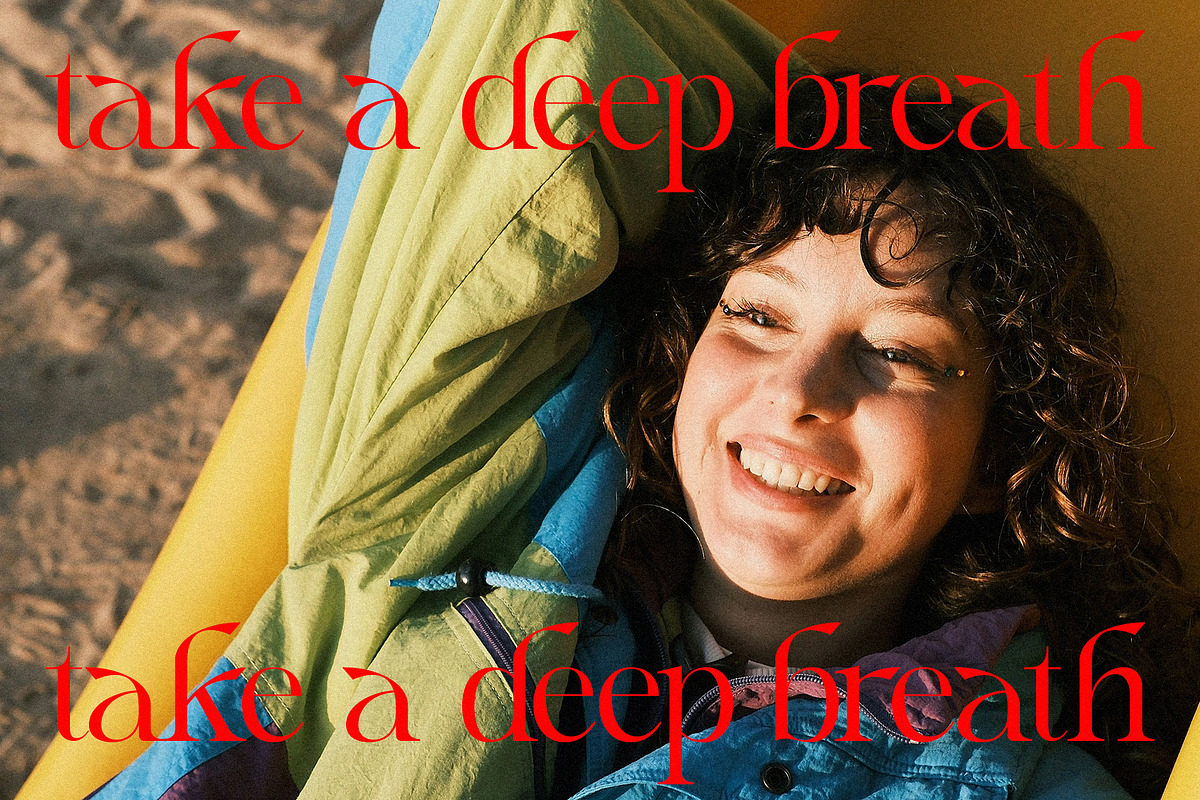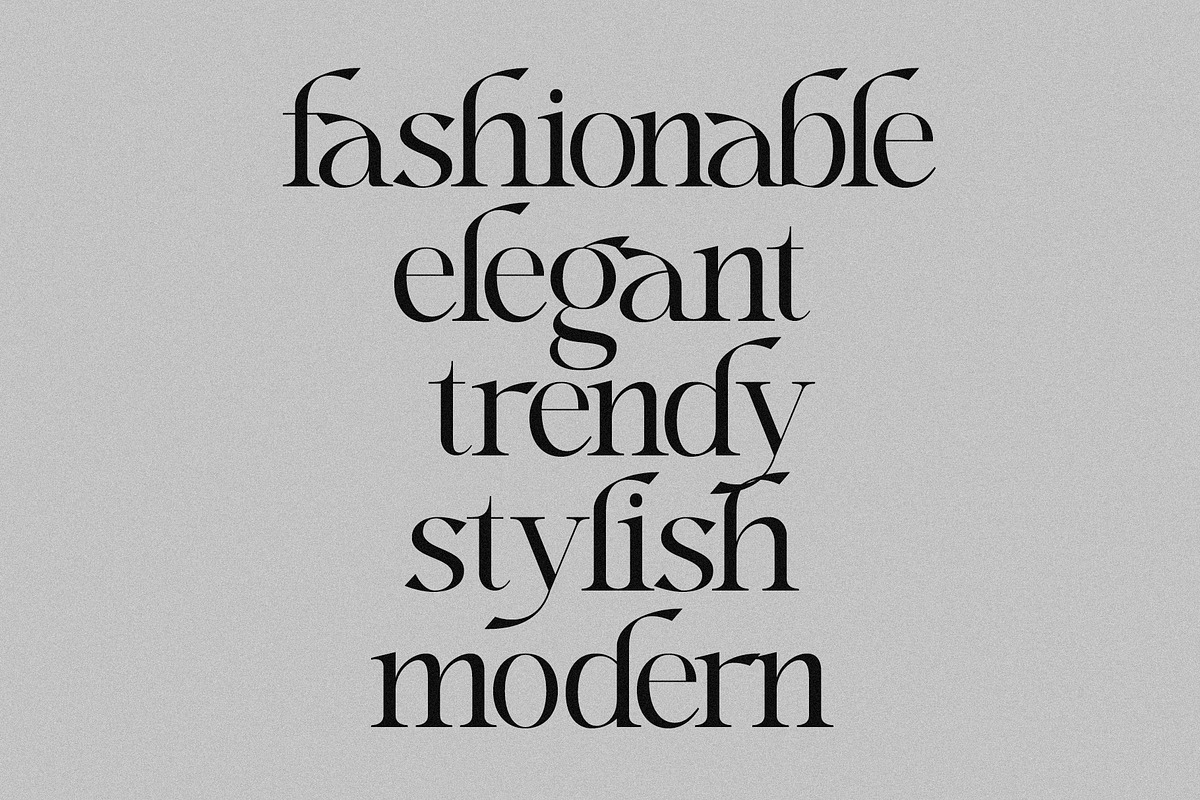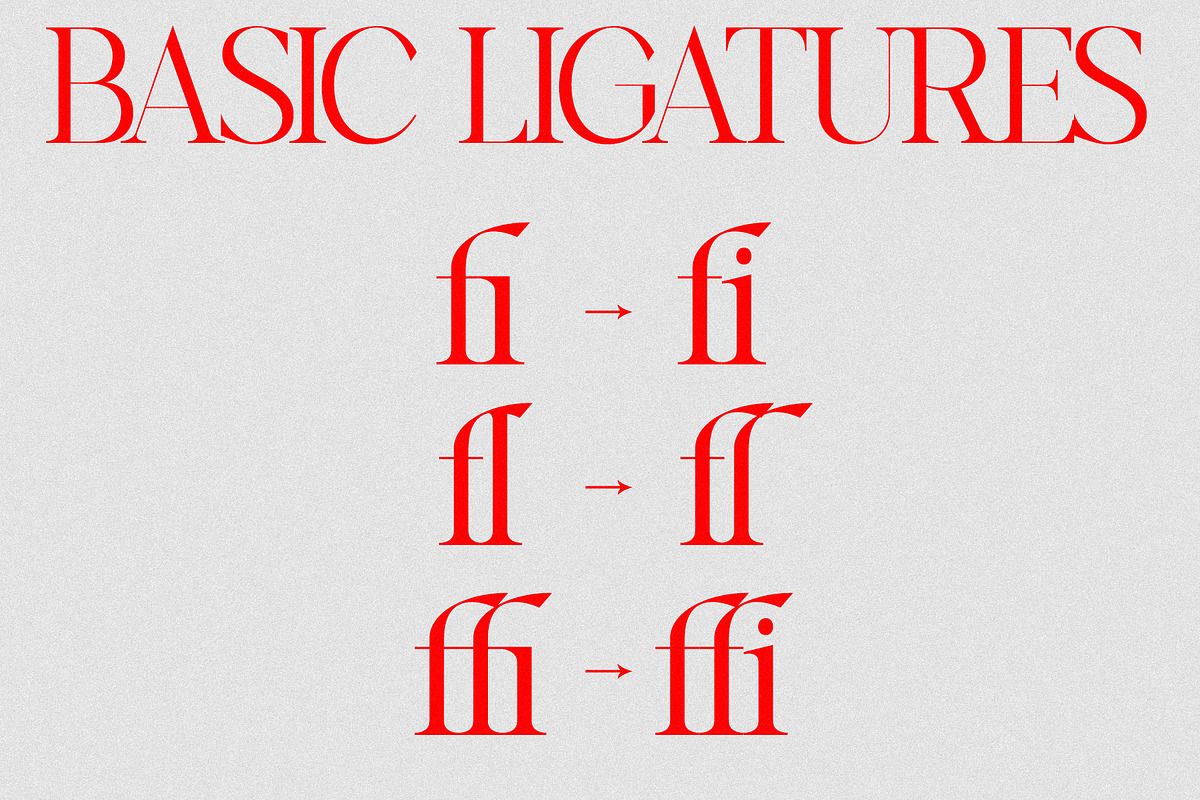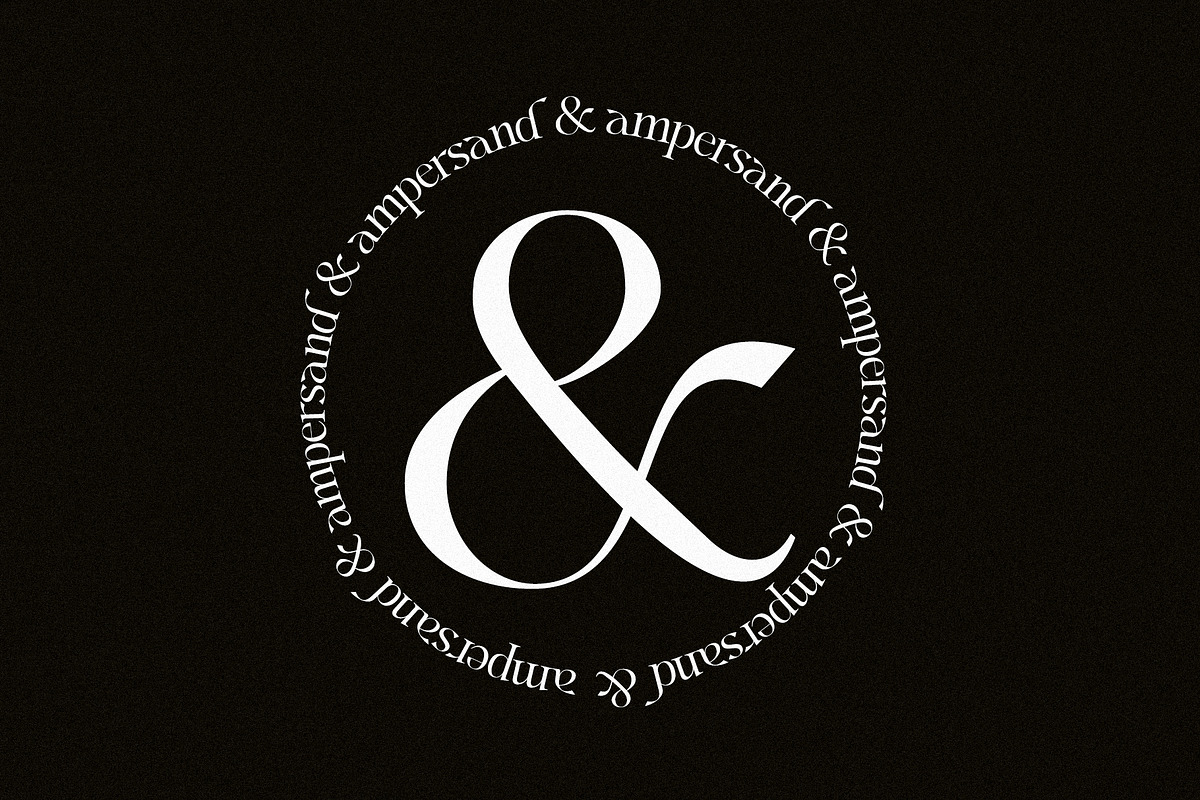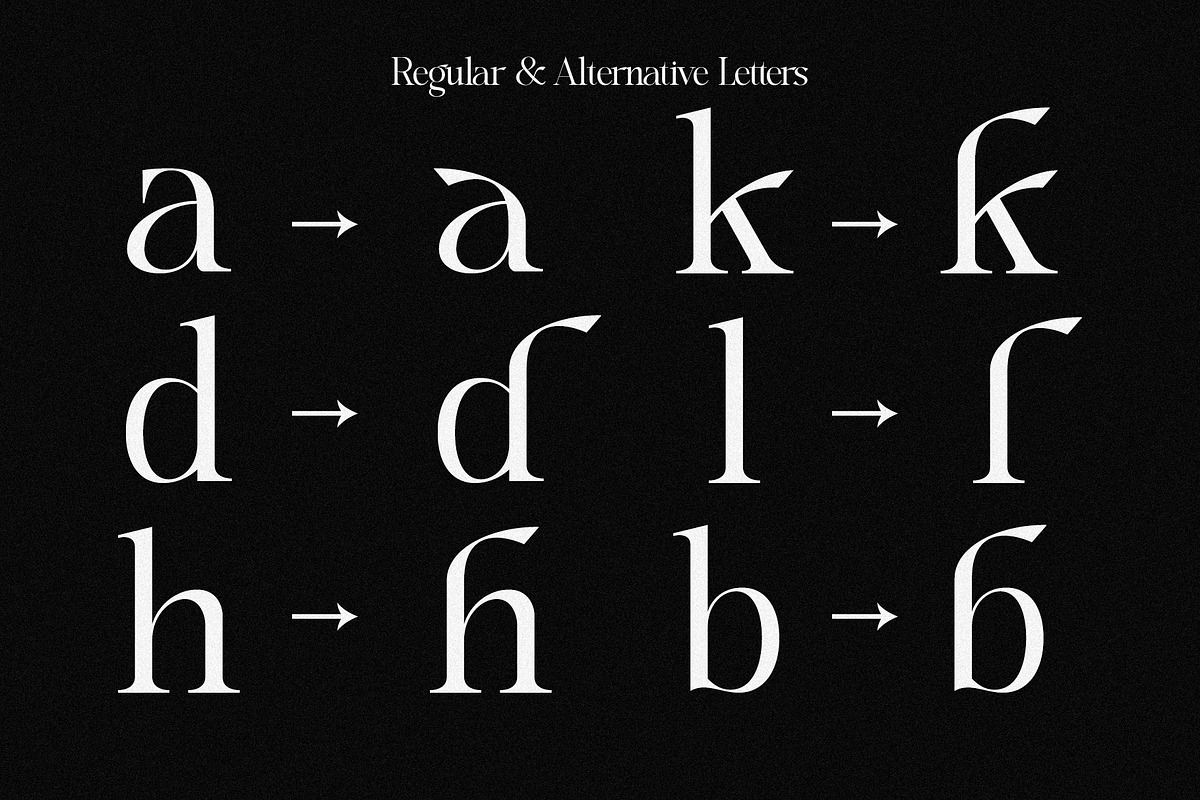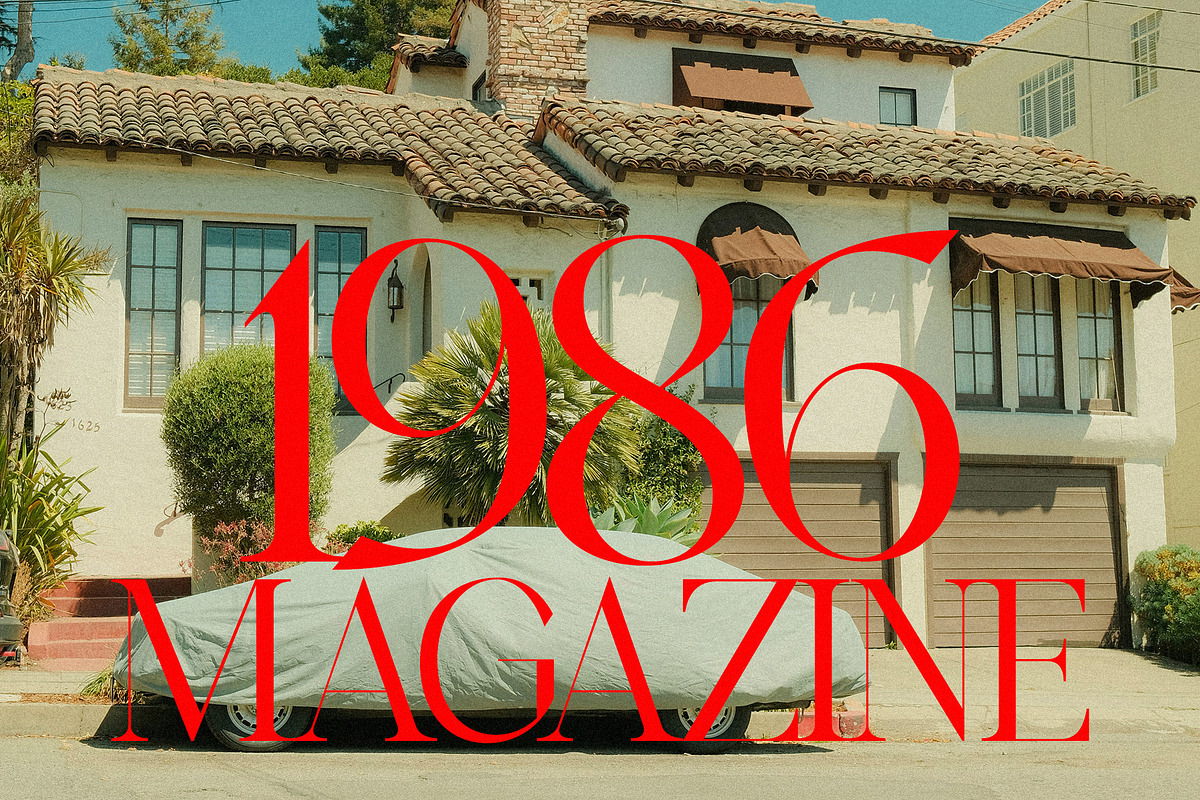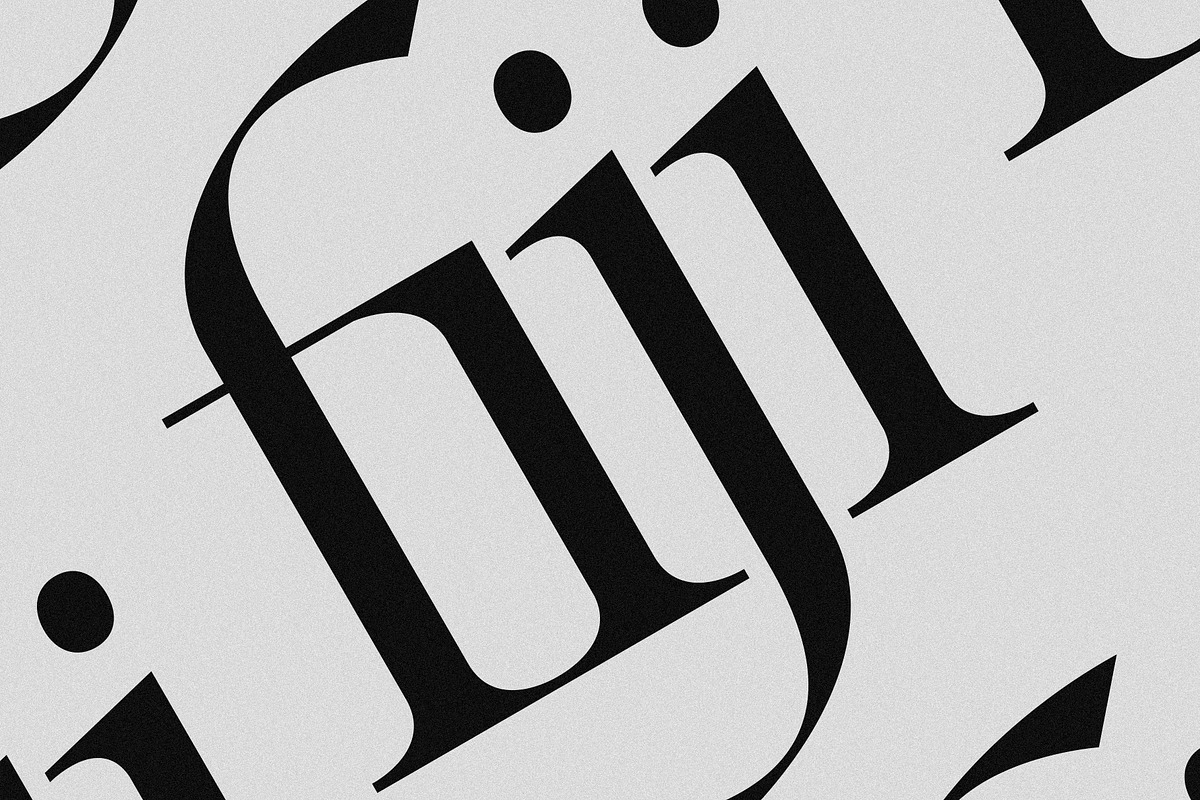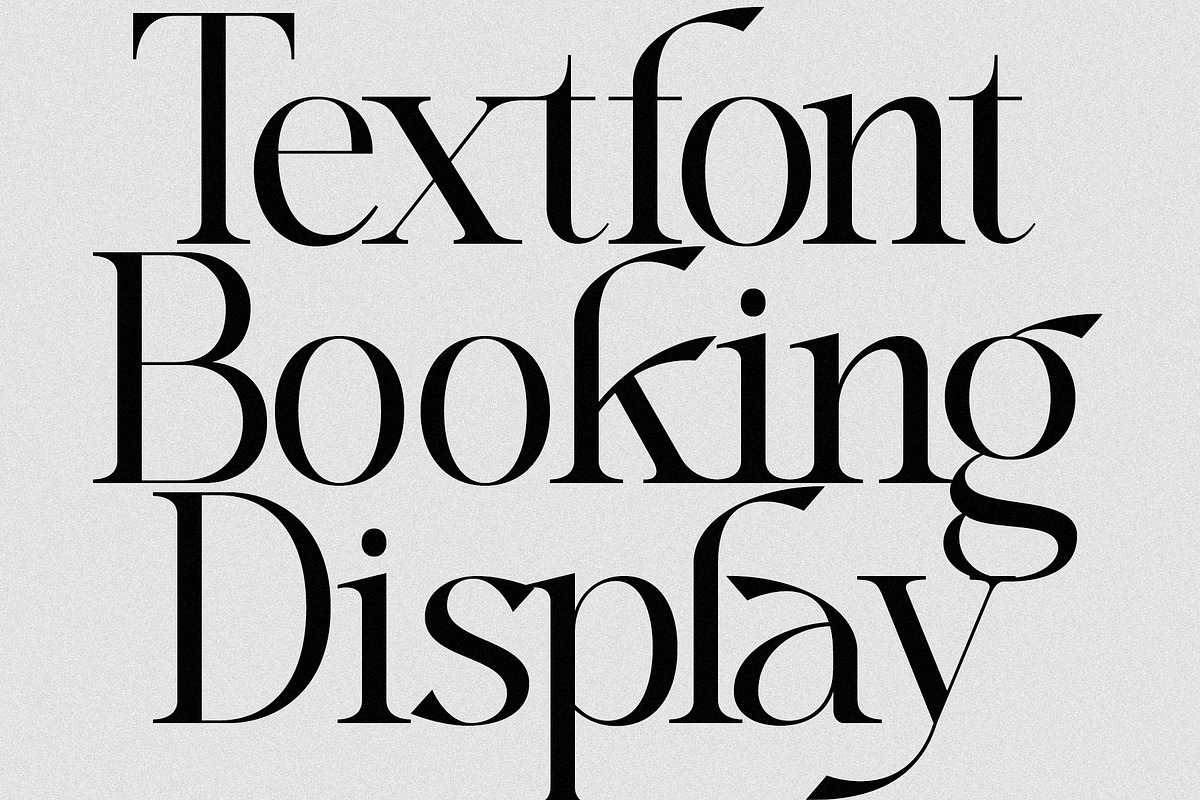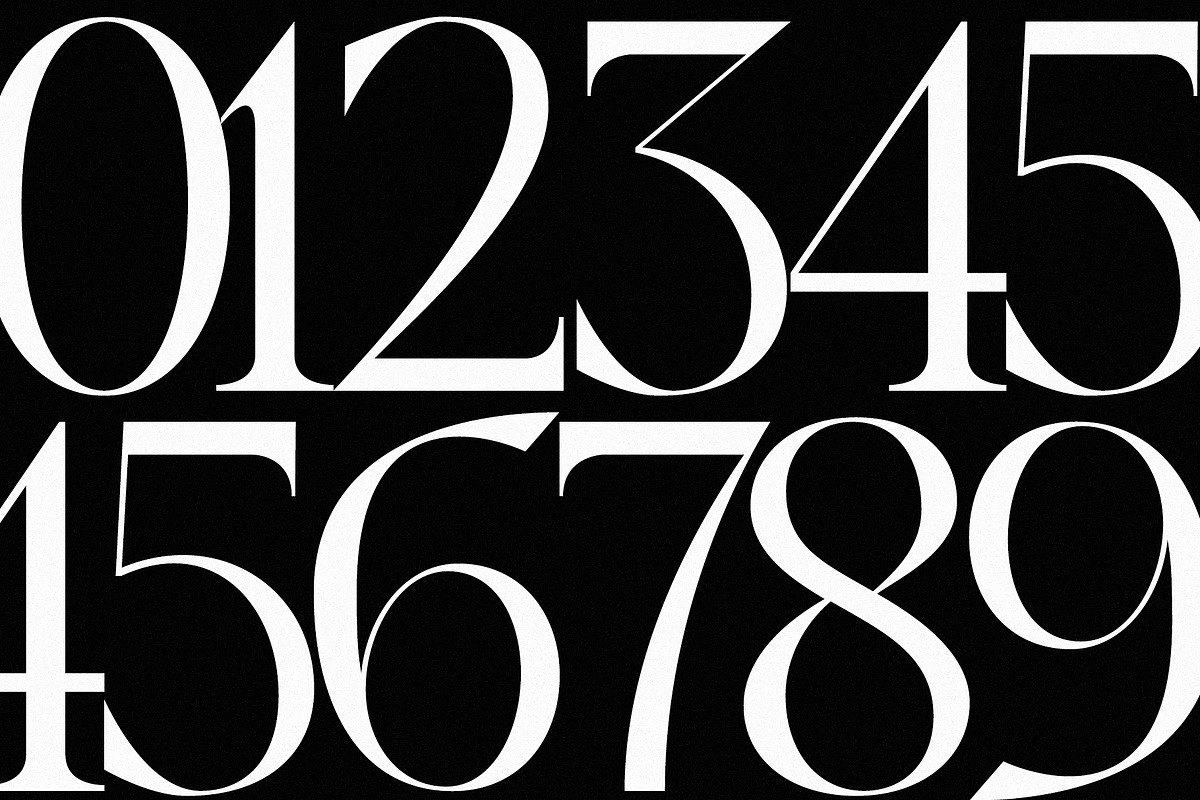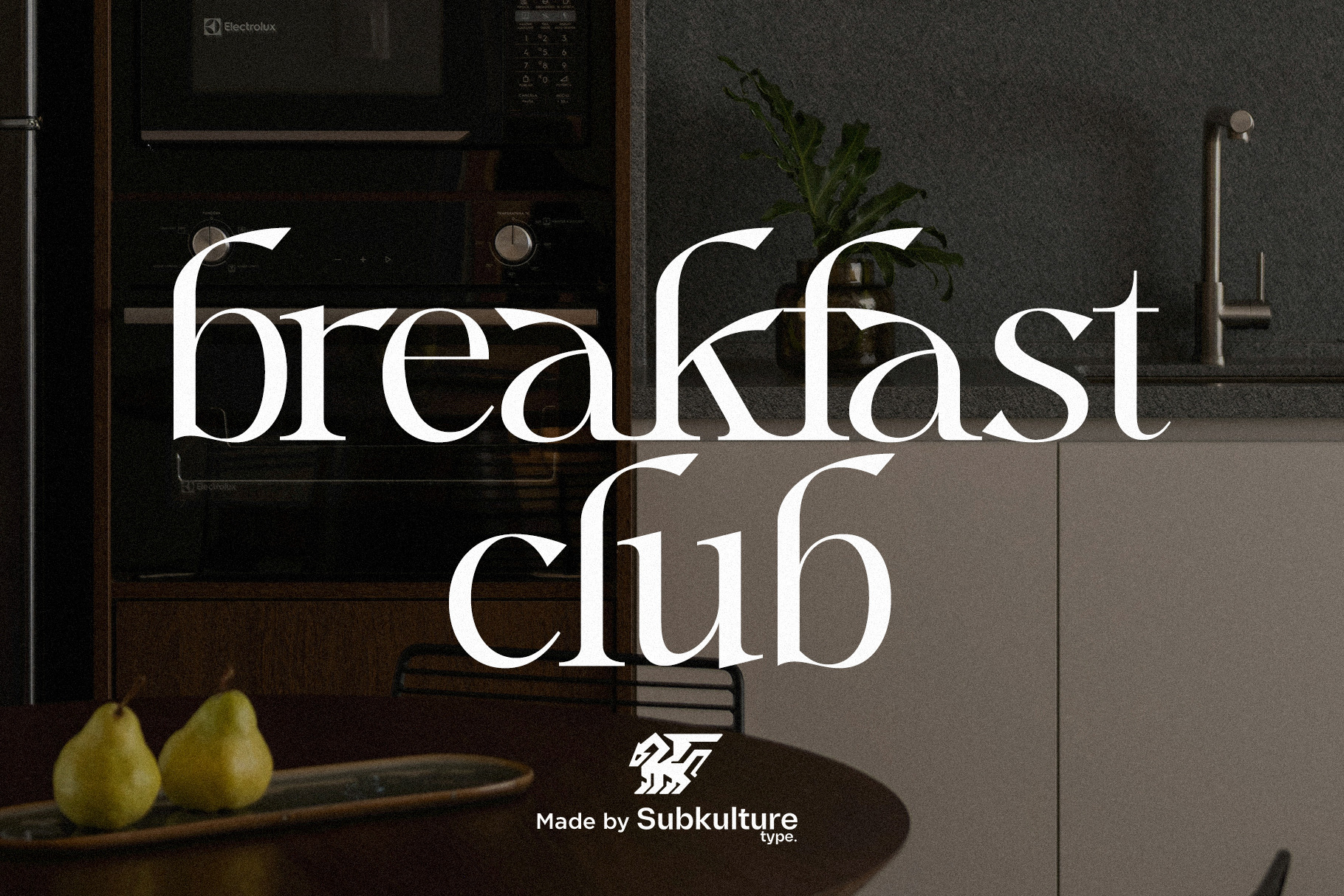
Breakfast Club - Duo Font
Breakfast Club – Duo Font is a stylish, modern typeface made to bring personality and charm to your designs. It comes with two matching styles - Regular and Alternative - so you can easily mix things up and create a look that feels fresh and fun.
The Regular style keeps things clean and polished, while the Alternative version adds a playful twist that helps your words stand out. Together, they’re perfect for logos, social media posts, branding, packaging, invitations, and anything that needs a little extra style.
Whether you’re going for bold or subtle, Breakfast Club makes designing feel easy, creative, and full of character.
Breakfast Club features uppercase & lowercase letters, numbers & symbols, multilingual support, over 300+ glyphs.